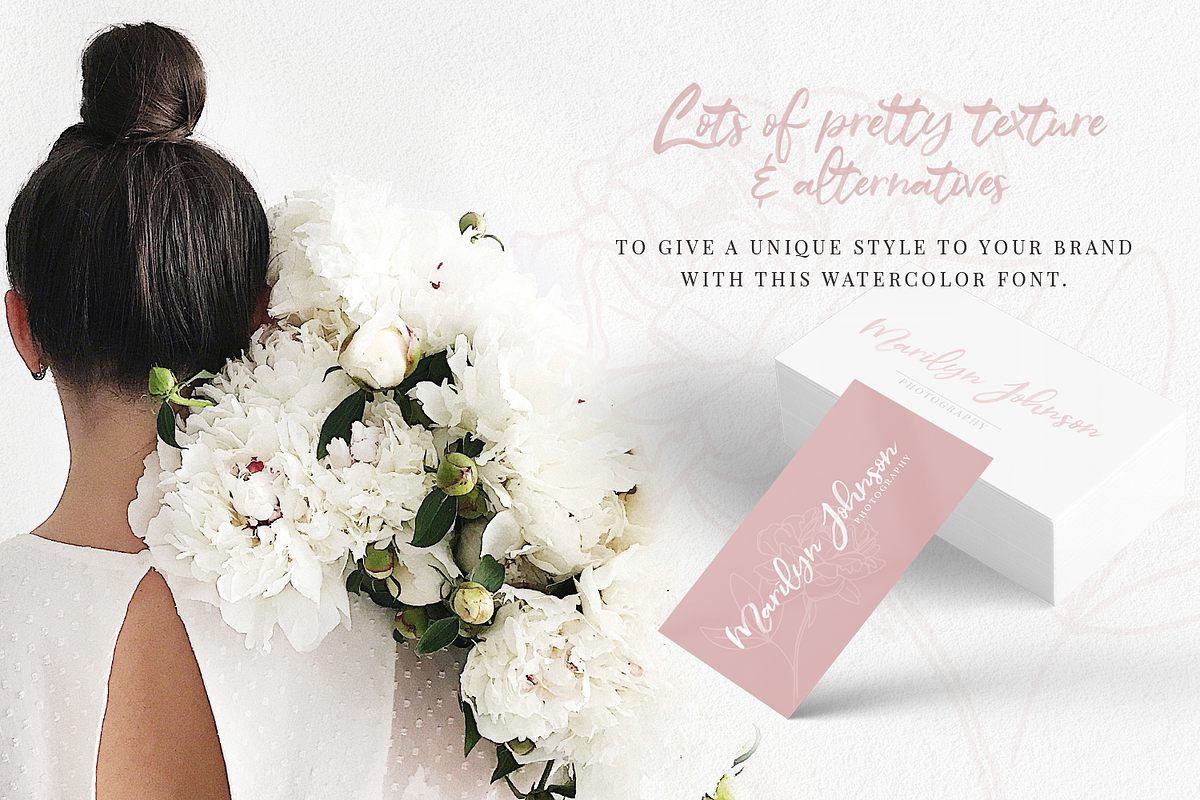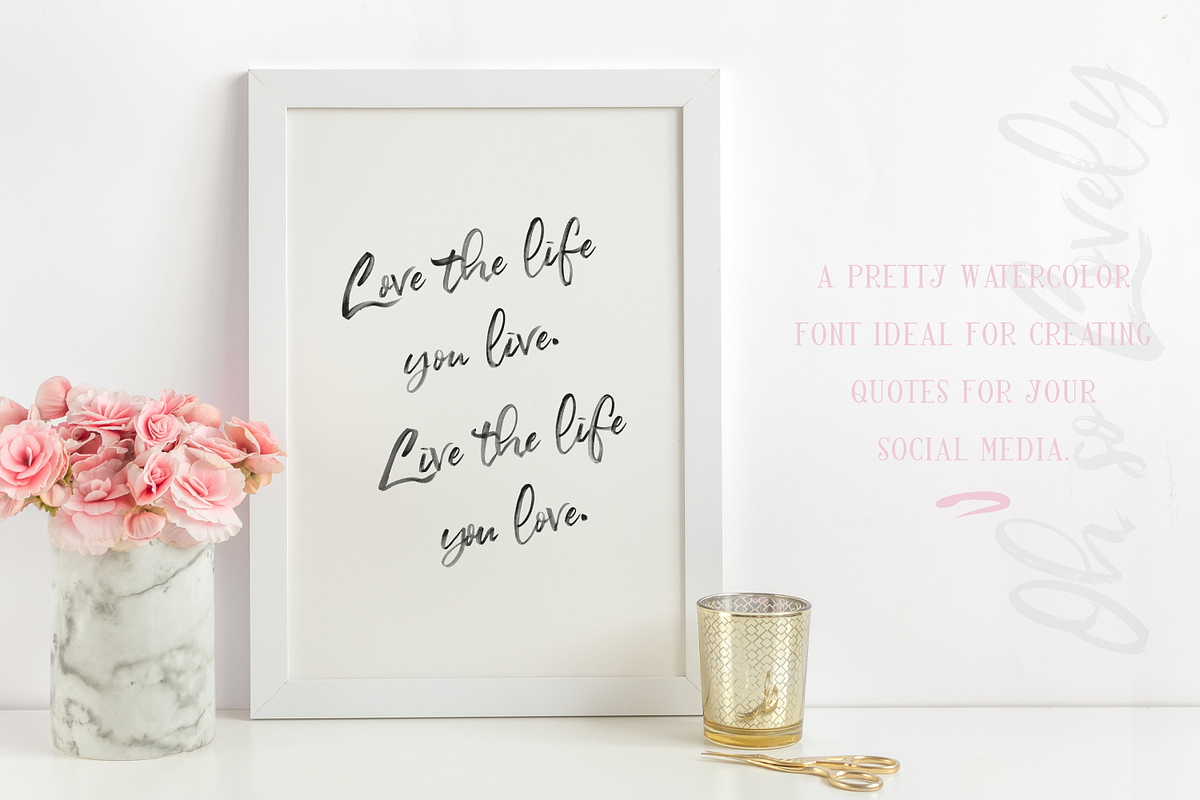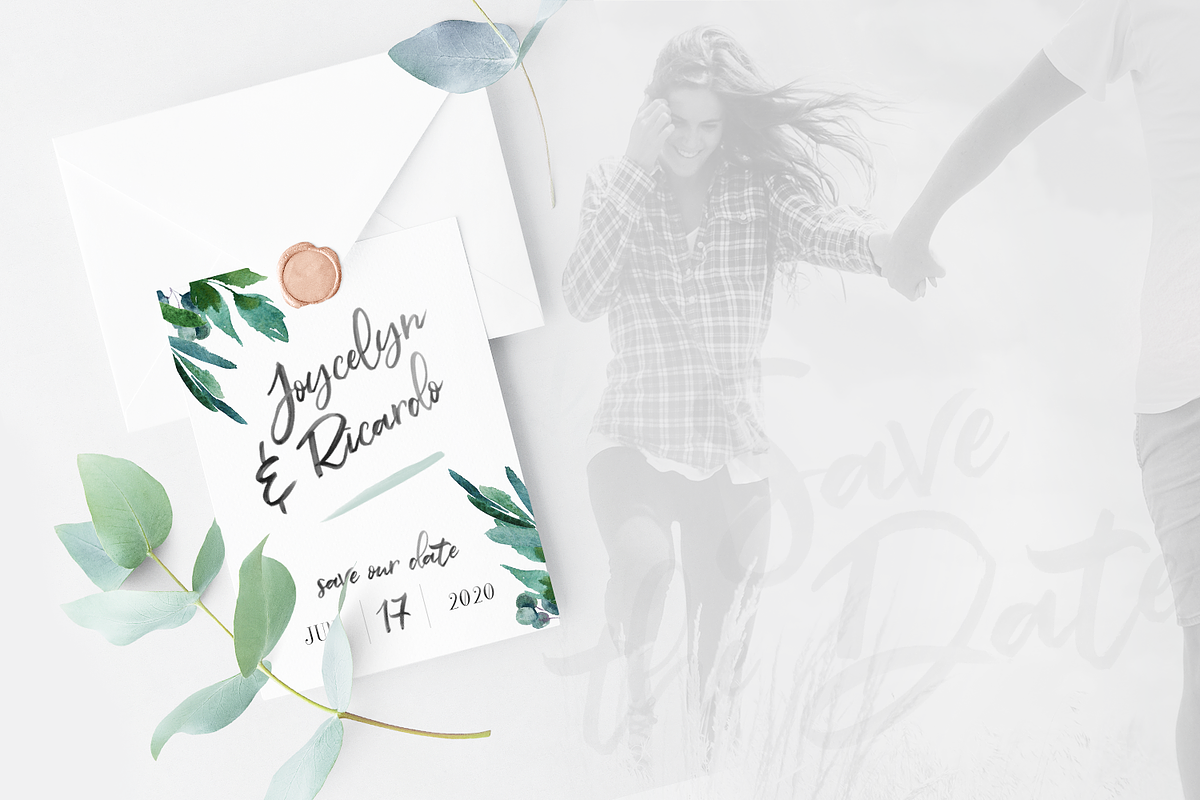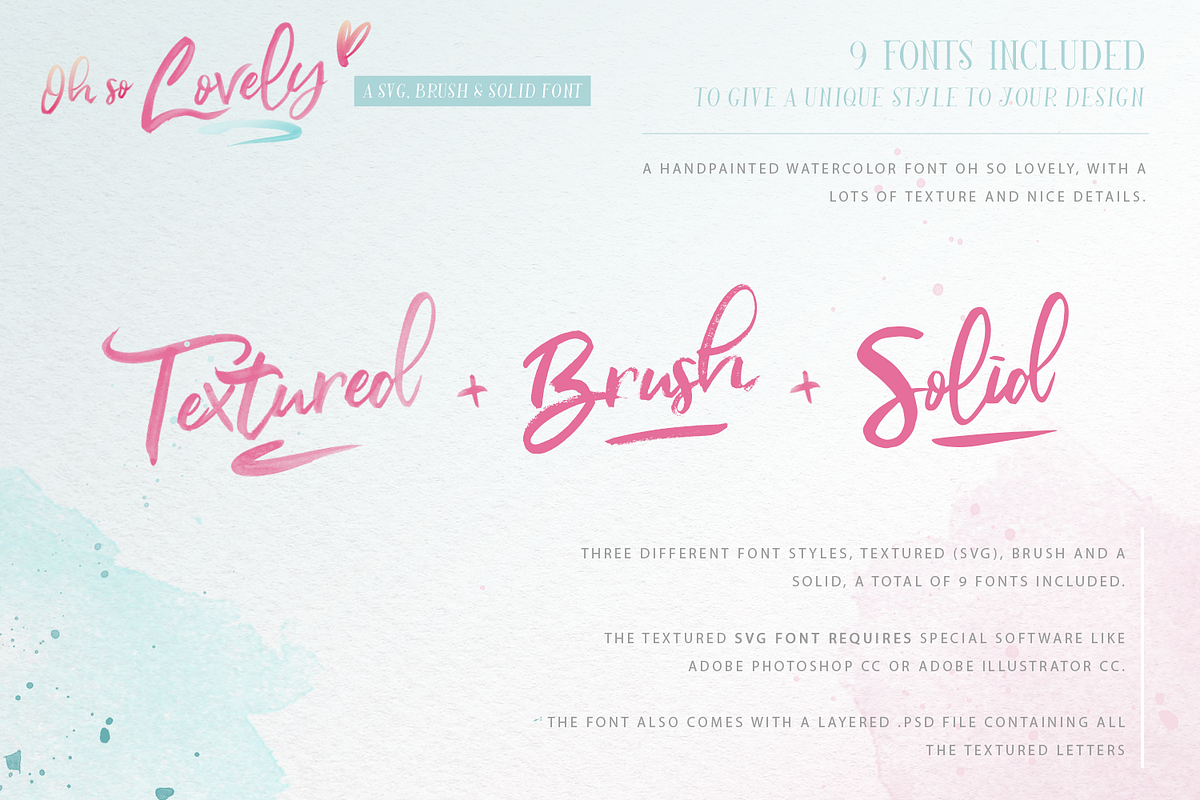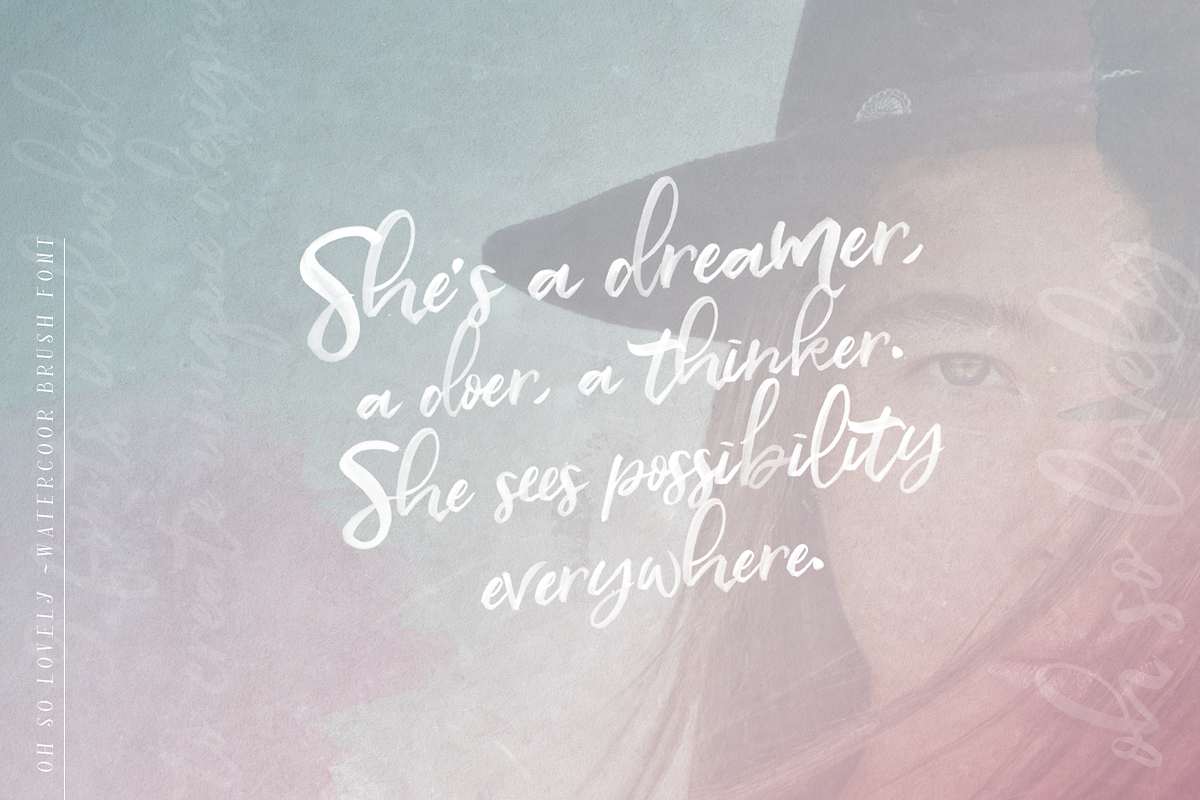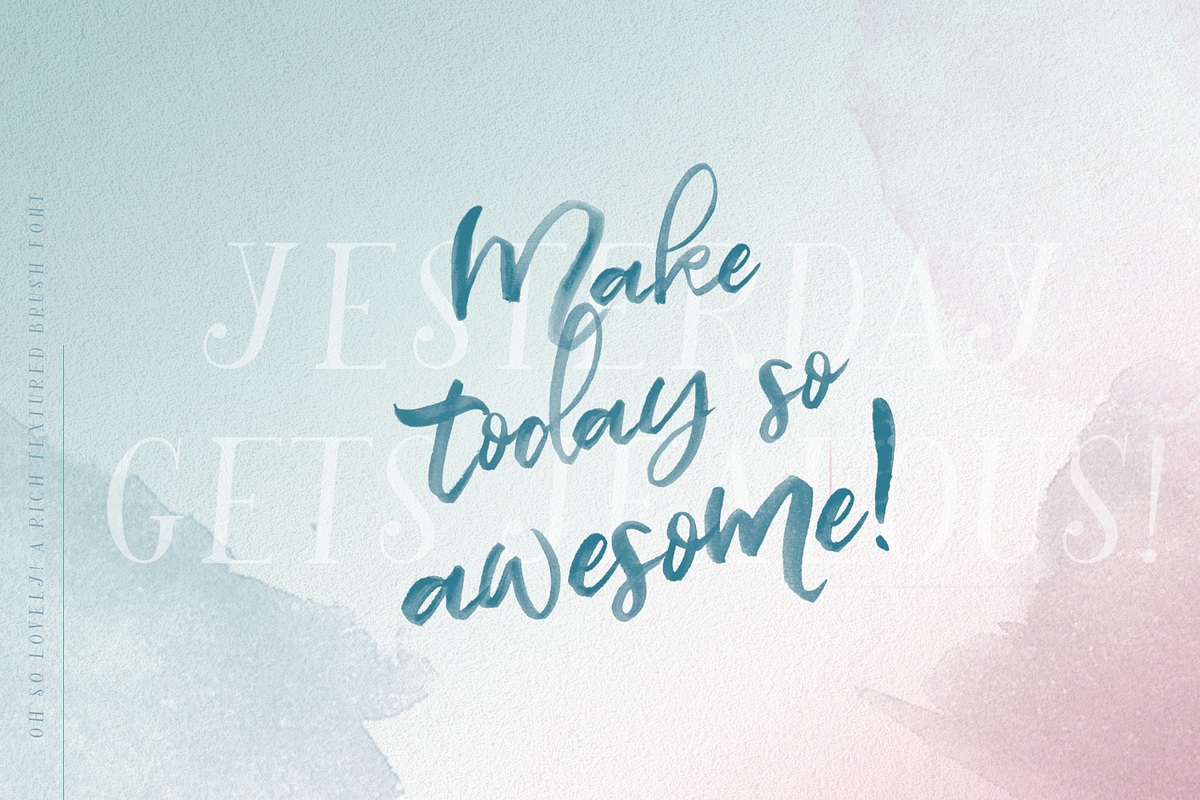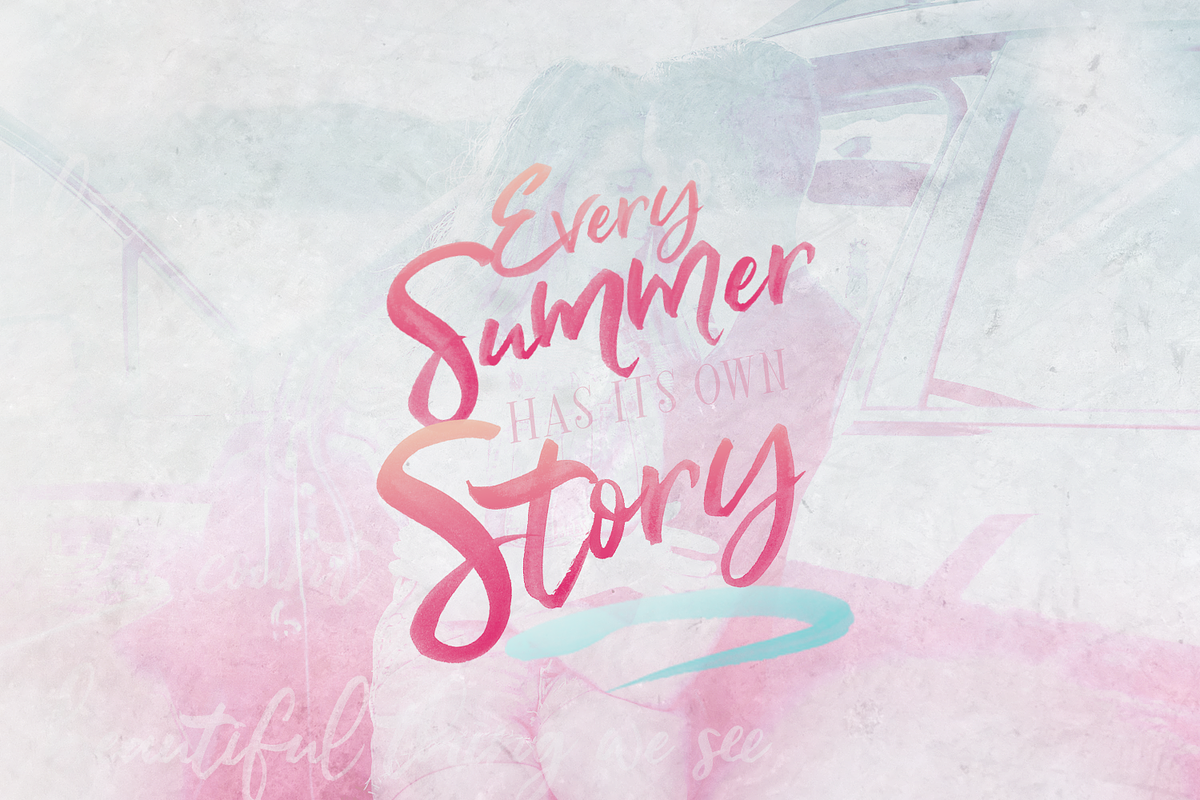
Oh So Lovely Font ~ a SVG Brush font
Introducing 'Oh so Lovely' a watercolor SVG brush font. A elegant font to create pretty quotes for your social media or other design projects.
Oh so Lovely fonts are multilingual. They contain the following characters in upper- and lowercase.
Oh So Lovely is handlettered with watercolor paint, and then converted to a new type of font called SVG that can only be used in Photoshop CC or Adobe CC. This elegant font retains all the texture of the watercolor paint, so it looks like it's handpainted when you use it in your design work. Besides the SVG style, the font comes with a otf brush and a solid style, so you can use the font like you are used to.
- Regular ~ A gorgeous watercolor script font, that has lowercase and uppercase alternates.
- Regular style ~ The lowercase and uppercase characters have alternates.
- Doodles ~ In a brush version and a solid version
- Multilingual